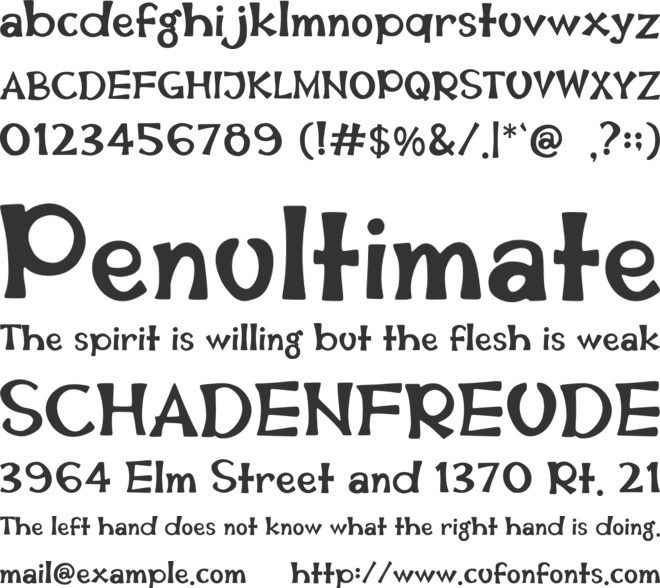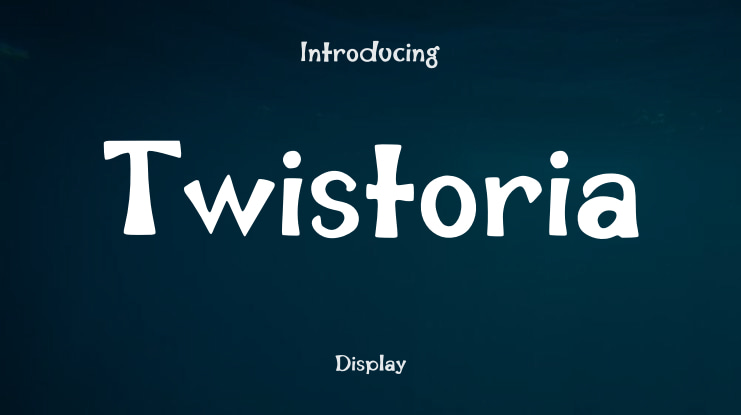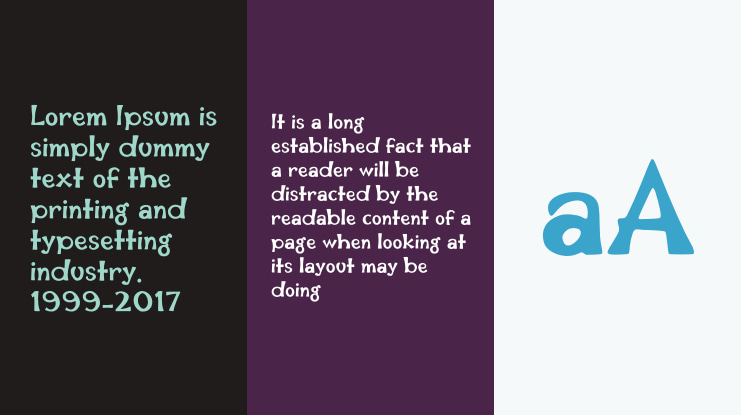
Twistoria Font Family
Twistoria Font Duo is a playful and versatile typeface that combines bold quirky display letters with a smooth handwritten script. Perfect for branding, quotes, invitations, posters, packaging, and creative projects, this duo brings harmony between fun and elegance. Use it for logos, greeting cards, stickers, social media designs, or DIY crafts to make your work stand out with a unique twist.